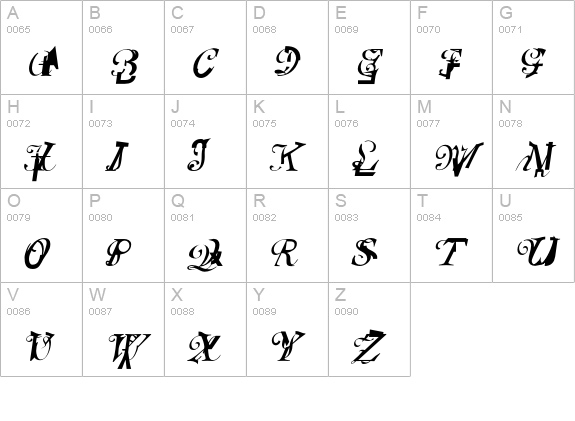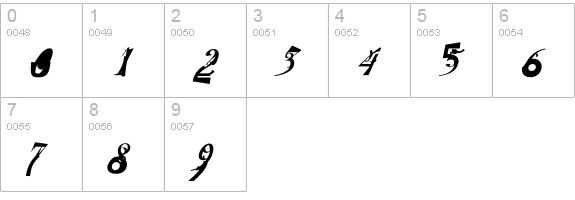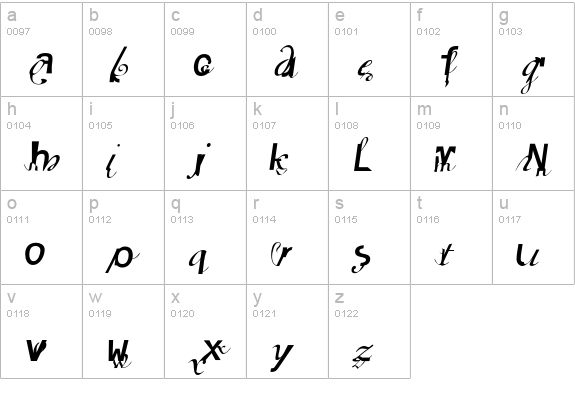
BlueEyeShadow Font Details
BlueEyeShadow font is a stunning display typeface that exudes elegance and sophistication. With its delicate curves and unique design, this font is perfect for adding a touch of class to any project. The graceful strokes and intricate details of BlueEyeShadow font make it a versatile choice for a variety of design applications, from branding to packaging to invitations. What makes BlueEyeShadow font even more appealing is that it is available for free download at FontsMarket.com. This means that you can easily access this beautiful font and use it in your projects without any cost. Whether you are a designer looking to elevate your work or an individual wanting to add a touch of style to your creations, BlueEyeShadow font is the perfect choice. Download it today and see the magic it brings to your designs!